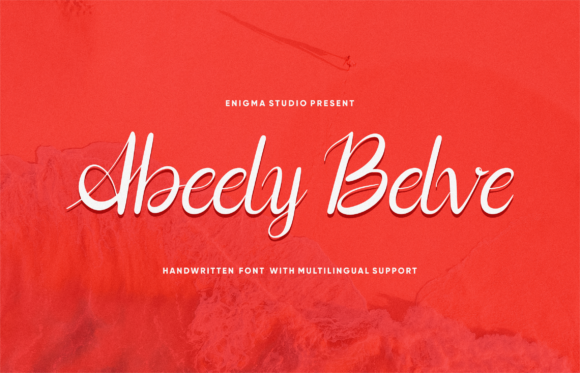
The Elegance of Abeely Belve: A Designer’s New Best Friend
I’ll never forget the time I was working on a project for a client who wanted a elegant, handwritten font to match their brand’s sophisticated vibe. I scoured the internet, tried out dozens of fonts, but nothing seemed quite right. That was until I stumbled upon Abeely Belve. This delicate, elegant, and flowing handwritten font has been a game-changer for me, and I’m excited to share my experience with you.
- ✨ Beautiful, well-balanced characters that exude elegance
- ✅ Versatile and matches a wide pool of designs
- 💫 Ravishing style that’s perfect for projects that need a touch of sophistication
- 🎨 Works beautifully with a variety of design elements, from illustrations to photographs
While Abeely Belve is an amazing font, there are a few things to keep in mind:
- ⚠️ Some characters may appear a bit delicate or thin when used in smaller sizes
- 🤔 Limited availability of certain OpenType features, such as ligatures or stylistic alternates
The Story Behind Abeely Belve
Abeely Belve was designed by a talented typographer who wanted to create a font that would evoke the elegance and sophistication of handwritten calligraphy. With its delicate lines and flowing curves, Abeely Belve is the perfect choice for designers who want to add a touch of luxury to their projects.
Q: What is Abeely Belve?
A: Abeely Belve is a delicate, elegant, and flowing handwritten font perfect for projects that need a touch of sophistication.
Q: Is Abeely Belve suitable for body text?
A: While Abeely Belve is beautiful, it may not be the best choice for body text due to its delicate lines and flowing curves. It’s better suited for headings, titles, or short paragraphs.